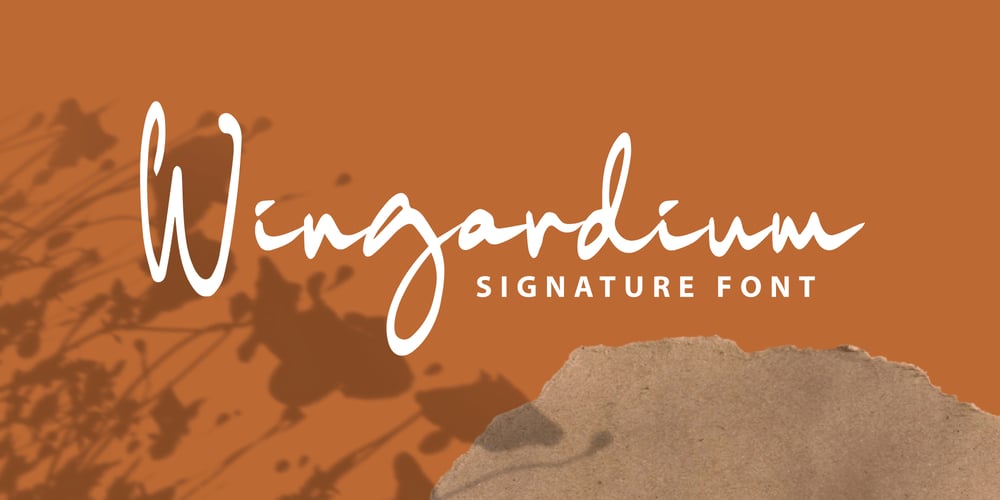
Wingardium Font Family was designed by Lia Almuknisa and published by Fromletterel. Wingardium contains 1 styles and family package options. Wingardium is a stylish and delicatw script font, it is suitable for any project such as logo, branding, label, photigraohy, watermark, special events and all kind of project that needs natural writing vibe.